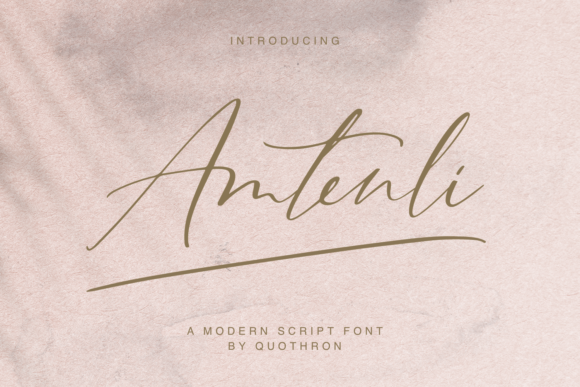
Introducing Amtenli Script Font: Elevate Your Designs with Elegance
Are you on the hunt for a font that exudes elegance, sophistication, and a touch of whimsy? Look no further than the Amtenli Script Font. This stunning typeface is designed to captivate with its thin, graceful letters and versatility, making it perfect for a wide range of creative projects. In this article, we’ll dive into the world of Amtenli Script, exploring its features, uses, and the magic it can bring to your designs.
The Charm of Amtenli Script Font
Amtenli Script is a thin lettered and graceful script font that is sure to leave a lasting impression. Its ravishing style is characterized by delicate strokes, flowing connections, and a sense of fluidity that makes it a joy to behold. Whether you’re a designer, crafty DIY enthusiast, or social media influencer, this font is sure to become a favorite in your creative arsenal.
Endless Possibilities with Amtenli Script
One of the most exciting aspects of Amtenli Script Font is its incredible versatility. This font can be used to create a wide range of stunning designs, including:
- Wedding Invitations: Add a touch of romance and sophistication to your wedding stationery with Amtenli Script. Its elegant style makes it perfect for wedding invitations, save-the-date cards, and ceremony programs.
- Stationary Art: Create beautiful, one-of-a-kind stationery, journals, and planners that showcase your personal style.
- Social Media Posts: Elevate your social media game with eye-catching posts, quotes, and graphics that feature the Amtenli Script Font.
- Branding and Packaging: Use Amtenli Script to add a touch of elegance to your brand’s packaging, labels, and marketing materials.
Why Designers and Crafters Love Amtenli Script
So, what makes Amtenli Script Font so special? Here are just a few reasons why designers and crafters can’t get enough of this gorgeous typeface:
- Elegant and Sophisticated: Amtenli Script exudes elegance and sophistication, making it perfect for designs that require a touch of refinement.
- Highly Versatile: This font can be used in a wide range of creative projects, from wedding invitations to social media posts.
- Easy to Read: Despite its delicate nature, Amtenli Script is highly legible, making it perfect for body text and longer designs.
Tips for Using Amtenli Script Font
To get the most out of Amtenli Script Font, here are a few tips to keep in mind:
- Pair with Bold Fonts: Combine Amtenli Script with bold, contrasting fonts to create visual interest and hierarchy.
- Experiment with Colors: Play with different colors and textures to add depth and personality to your designs.
- Use for Headlines and Titles: Amtenli Script is perfect for headlines, titles, and captions – use it to add a touch of elegance to your designs.
In conclusion, Amtenli Script Font is a stunning typeface that is sure to captivate designers, crafters, and social media enthusiasts alike. Its elegant style, versatility, and ease of use make it perfect for a wide range of creative projects. Whether you’re looking to create gorgeous wedding invitations, beautiful stationary art, or eye-catching social media posts, Amtenli Script Font is the perfect choice. So why wait? Fall in love with Amtenli Script and elevate your designs to new heights of elegance and sophistication.